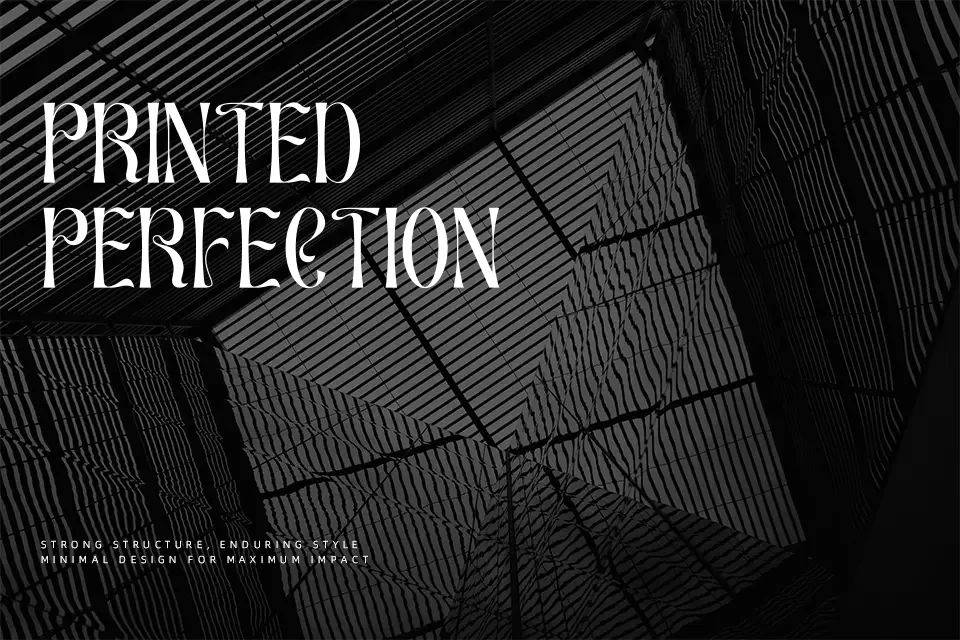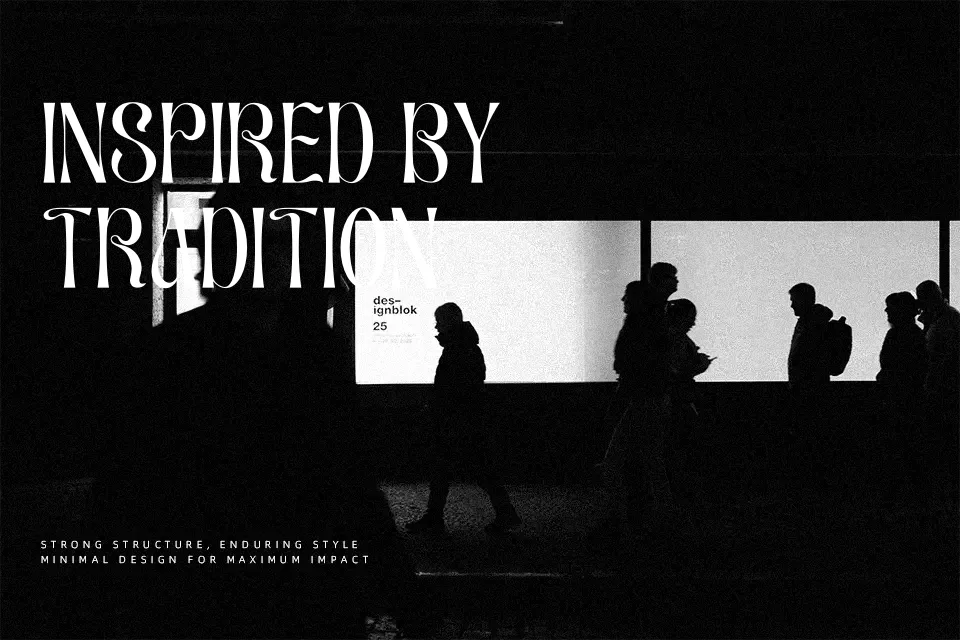
Tupac Magrath Font
Built with slender structural framing and dramatic thickness shifts, Tupac Magrath Font pairs elongated vertical proportions with tightly calibrated character spacing. The typeface features fine hairline serifs, deep curved transitions, and prominent vertical stress that together establish an unmistakable retro rhythm. Because the letterforms possess narrow counters and delicate thin strokes, readability thrives in prominent poster titles, wine bottle labels, and exhibition signage. However, the delicate stroke contrast causes fine details to degrade rapidly in dense body text or compact interface captions. The tight horizontal tracking maintains an orderly visual cadence when set in uppercase titles, though extended reading runs quickly become exhausting.
Best For: vintage product packaging, editorial magazine headlines, luxury cosmetic branding, exhibition poster titles
Not Ideal For: long paragraph text, small interface labels, mobile app body copy, technical manuals
Perfect for branding, headline, and logo, with a classic and condensed style.